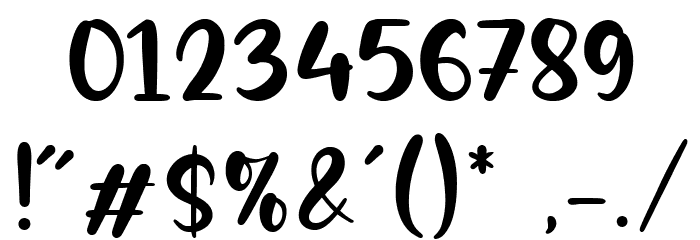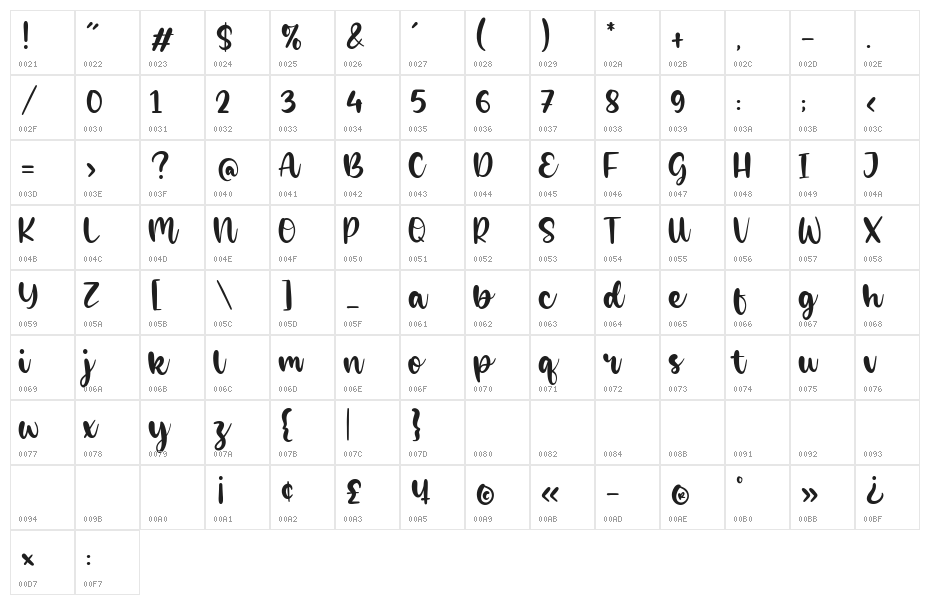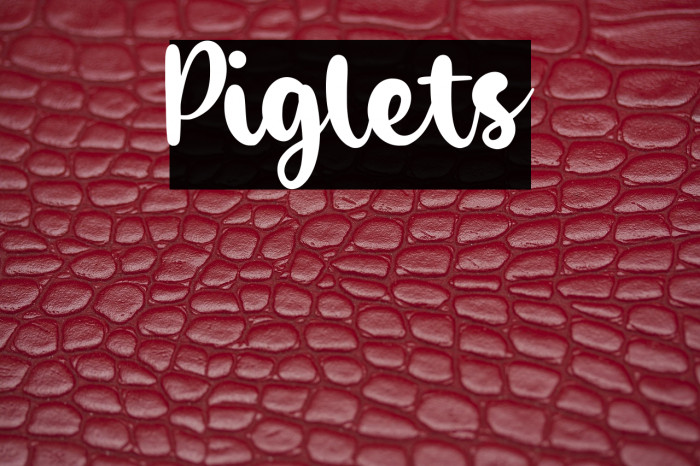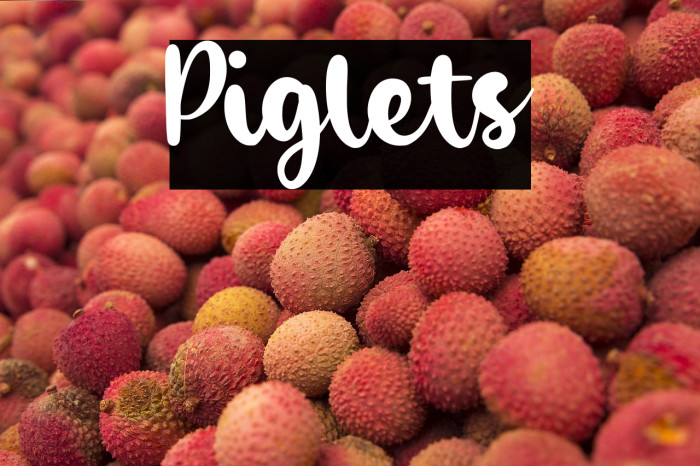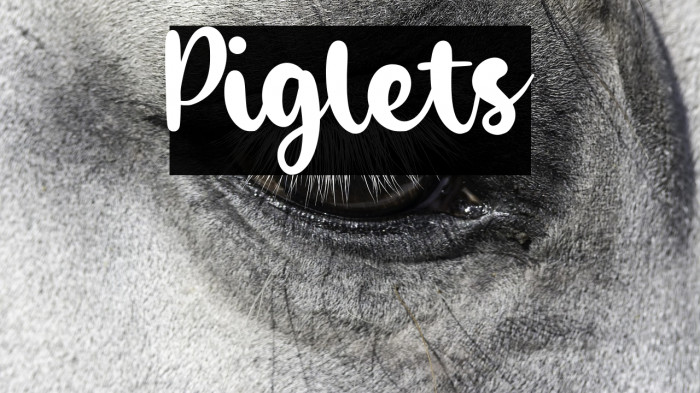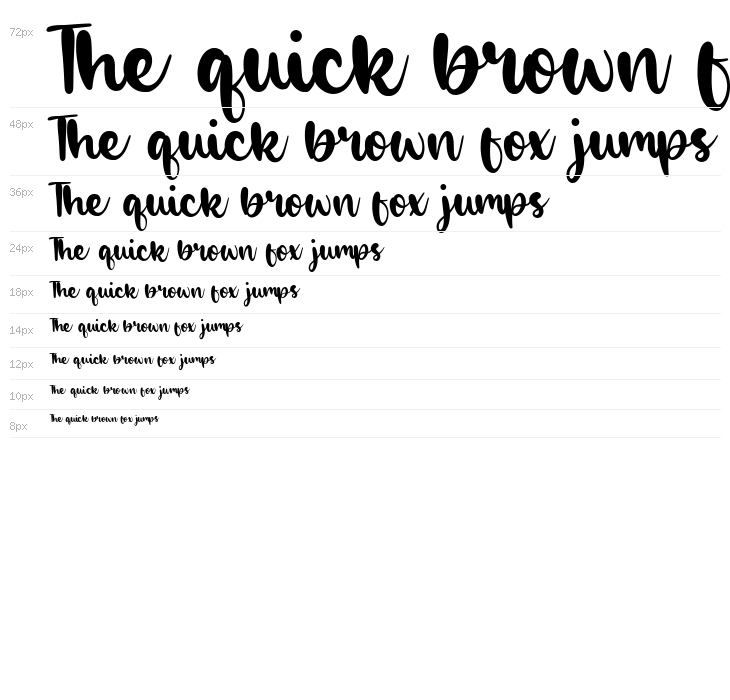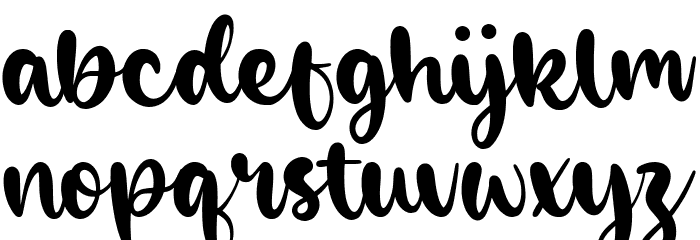
Piglets Font
Piglets Description
This font features a playful and energetic script style, characterized by its bold and flowing letterforms. The uppercase letters exhibit a lively bounce, while the lowercase letters maintain a consistent rhythm, creating a harmonious and inviting appearance. The numerals are clear and bold, matching the overall style of the alphabet. Special characters are well-integrated, maintaining the font's cohesive look. The strokes are thick and rounded, giving the font a friendly and approachable feel. This font is ideal for projects that require a personal touch, such as invitations, greeting cards, or playful branding.